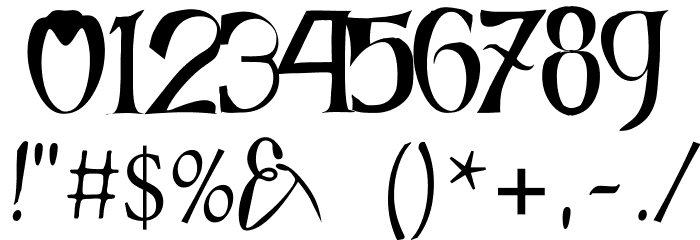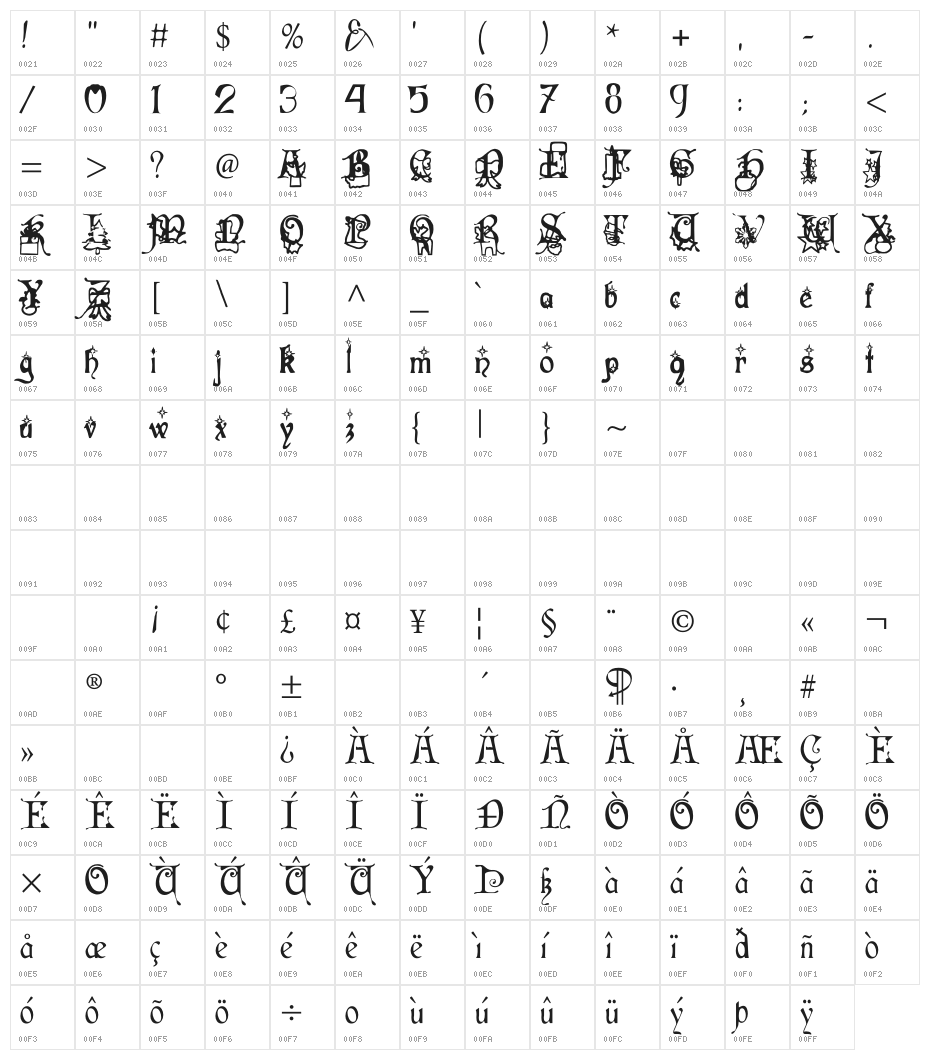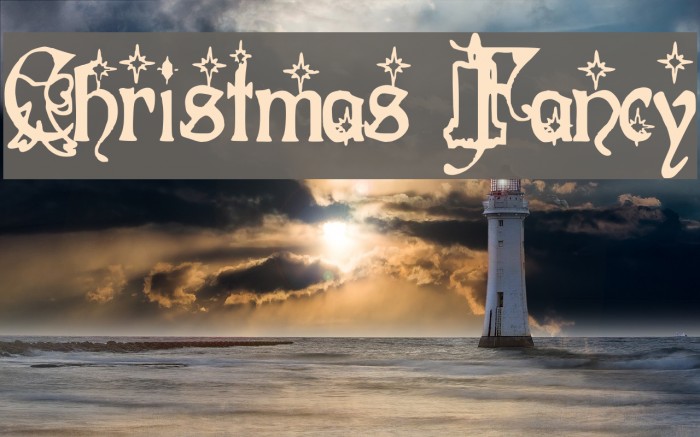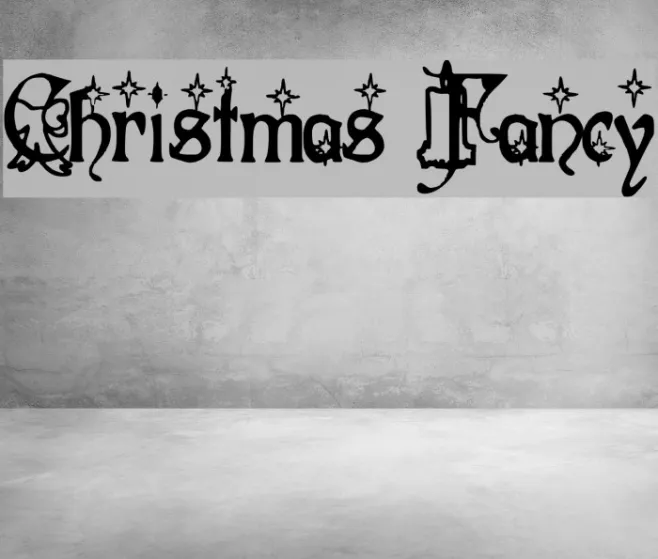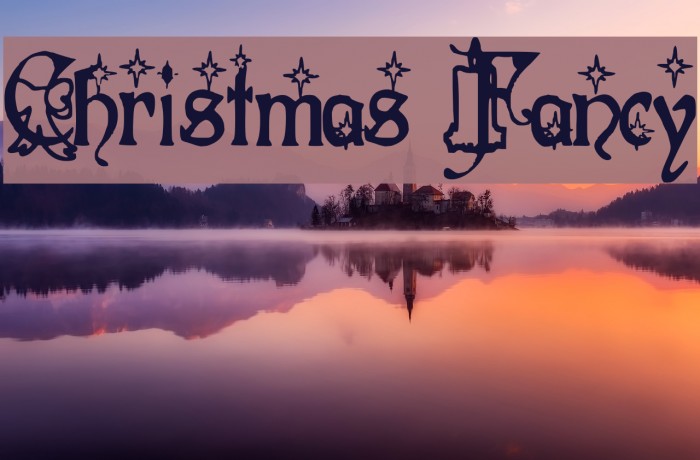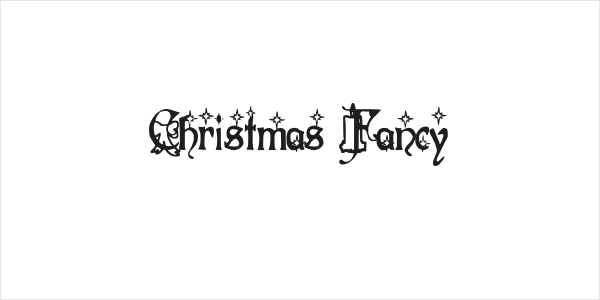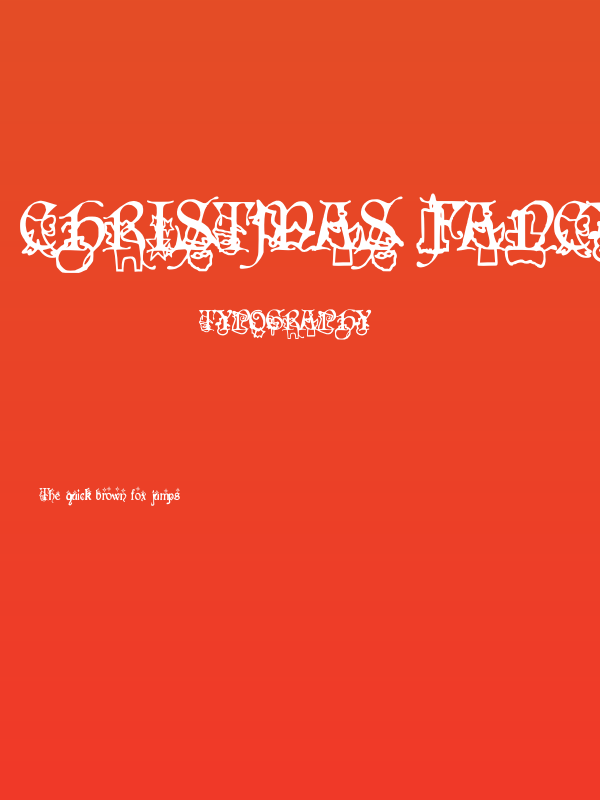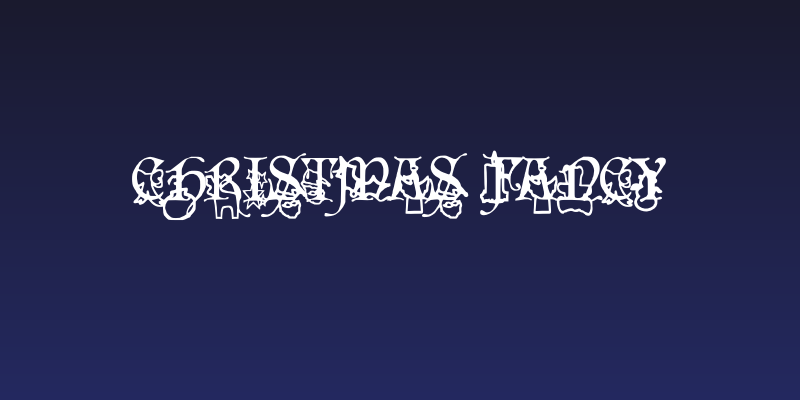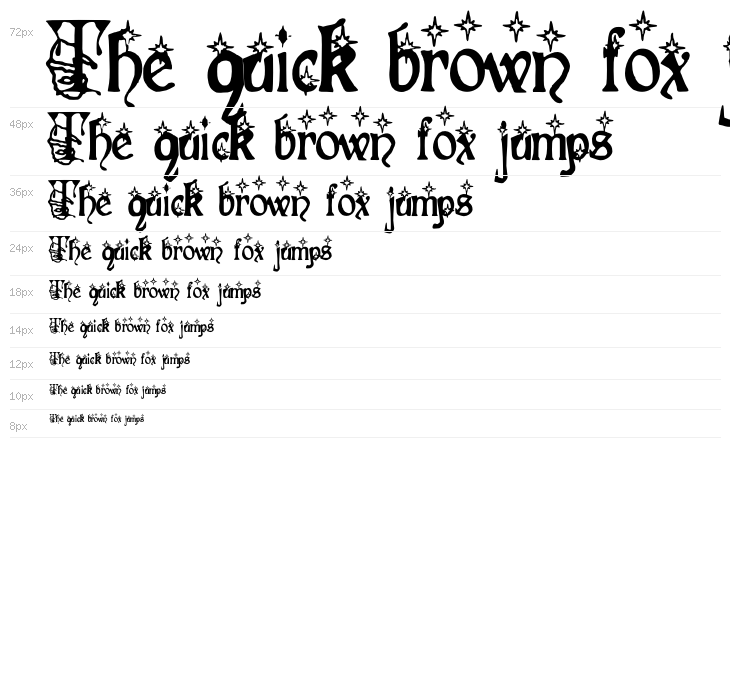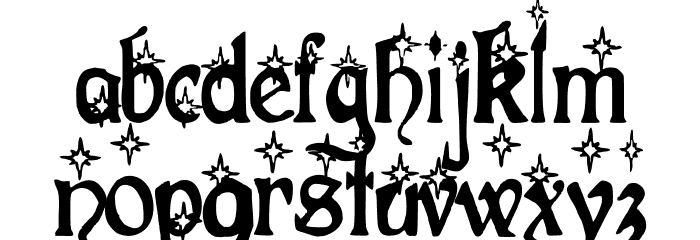
Christmas Fancy Font
Christmas Fancy Description
This font exudes a festive and whimsical charm, perfect for holiday-themed projects. The uppercase letters are adorned with intricate star-like embellishments, giving them a decorative and ornate appearance. The lowercase letters maintain a playful yet elegant style, with smooth curves and occasional star accents. The numbers are bold and slightly exaggerated, adding to the overall festive feel. Special characters are creatively designed, incorporating elements like stars and swirls, enhancing the font's decorative nature. This font is ideal for creating eye-catching holiday cards, festive banners, and cheerful invitations.
| Proposed Projects | Holiday cards, festive banners, cheerful invitations, seasonal advertisements. |